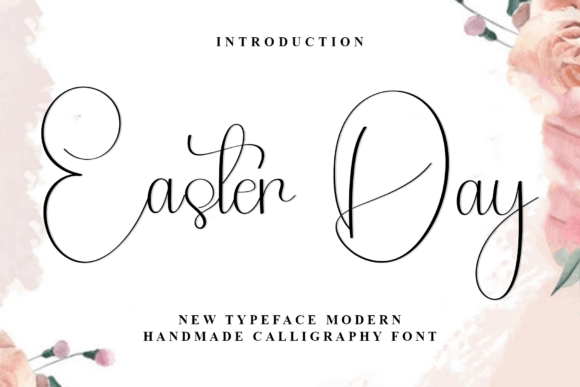
Bring Joy to Your Designs with the Easter Day Font
As you sit at your desk, surrounded by colorful papers, glue, and glitter, the excitement of creating something special for Easter is palpable. The holiday season is a time for joy, love, and connection, and your designs should reflect that. That’s where the Easter Day Font comes in – a festive and merry typeface that captures the spirit of the holiday season.
This enchanting font is perfect for greeting cards, gift tags, and holiday-themed projects, adding a touch of whimsy and nostalgia to your words. With its decorative elements and cheerful ambiance, the Easter Day Font brings a sense of magic to your typography. As a designer, you know how valuable a great font can be in elevating your work, and this PUA-encoded font is no exception, making it easy to access all of its amazing glyphs and ligatures.
Easter Day Font Key Features
- Unique Characteristics: Easter Day Font features a unique, hand-drawn design with intricate details and ornate flourishes, making it a standout choice for Easter-themed designs and celebrations.
Easter Day Font Review
I recently had the chance to work with the Easter Day Font, and I wanted to share my honest thoughts on this unique font. ✨ One thing that really stood out to me was the playful and festive feel of the font. It’s perfect for projects that need a touch of springtime magic. The Easter Day Font comes with a wide range of glyphs, including some fun and creative symbols that add to its charm.
Another advantage of this font is its versatility. It can be used in a variety of contexts, from greeting cards to social media graphics. The font is also highly customizable, allowing users to adjust the size, color, and spacing to fit their needs.
What Doesn’t Work So Well
While the Easter Day Font has many strengths, there are a few limitations to be aware of: ⚠️
- Limited legibility at small font sizes. The font may become difficult to read if used in text-heavy content.
- No bold or italic variants, which may limit its use in certain applications.
- The font may not be suitable for formal or professional projects, as it has a more playful tone.
Overall, I think the Easter Day Font is a fun and creative addition to any designer’s toolkit. While it may not be perfect for every project, it’s a great choice for anything that needs a touch of whimsy and personality.
The Easter Day font is ideal for creating festive designs for Easter-themed invitations, greeting cards, and social media posts.
It’s also great for adding a touch of spring to your designs and graphics.